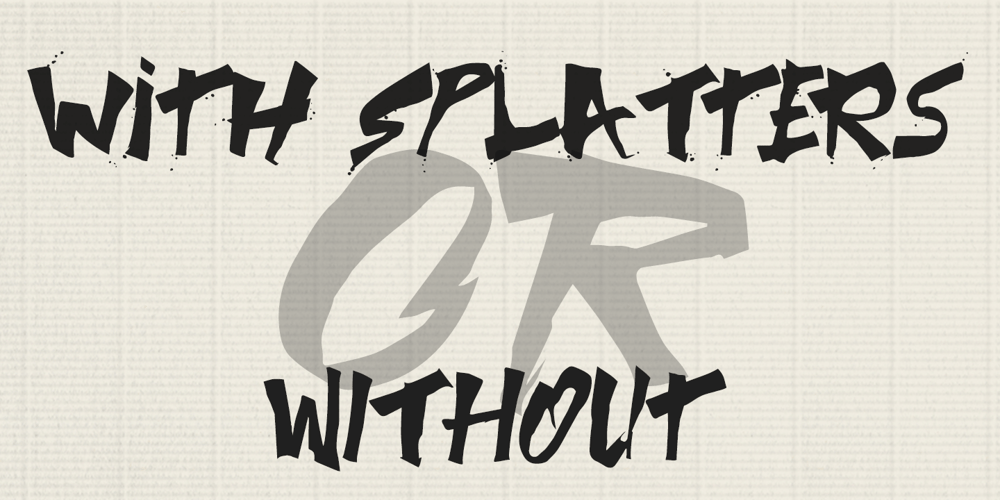
Fat Nib
Fat Nib font
Fat Nib Font Family was designed by Kent Swecker and published by A New Machine. Fat Nib contains 2 styles and family package options. This hand drawn calligraphy font was made with a wide nib pen. It is all cap with different glyphs for the upper and lower case letters for mixing and matching. The Splatter family comes with extra splatter glyphs. Great for use when you need some added punch in a headline or callout.